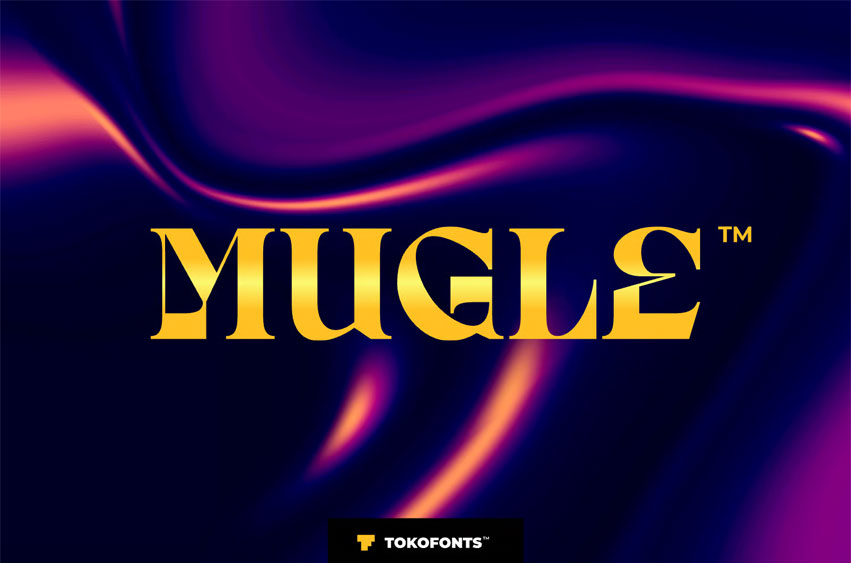
Mugle Font
Mugle Font is a typeface that embodies a minimal yet clean, elegant design approach, making it a versatile choice for a wide range of creative projects. Its refined style enhances the look of a corporate logo, balancing professional clarity with subtle sophistication. With its luxurious details and strong modern presence, the font adapts seamlessly to cinematic titles, travel campaigns, and other visual storytelling needs where timeless appeal is essential.
Perfectly suited for royal branding concepts, this font adds distinction to any brand identity while maintaining harmony with contemporary aesthetics. Its flexibility makes it ideal for music covers, stylish cafe menus, and lifestyle promotions. Whether used for bold statements or subtle accents, this modern font delivers a striking balance of elegance, creativity, and functionality.